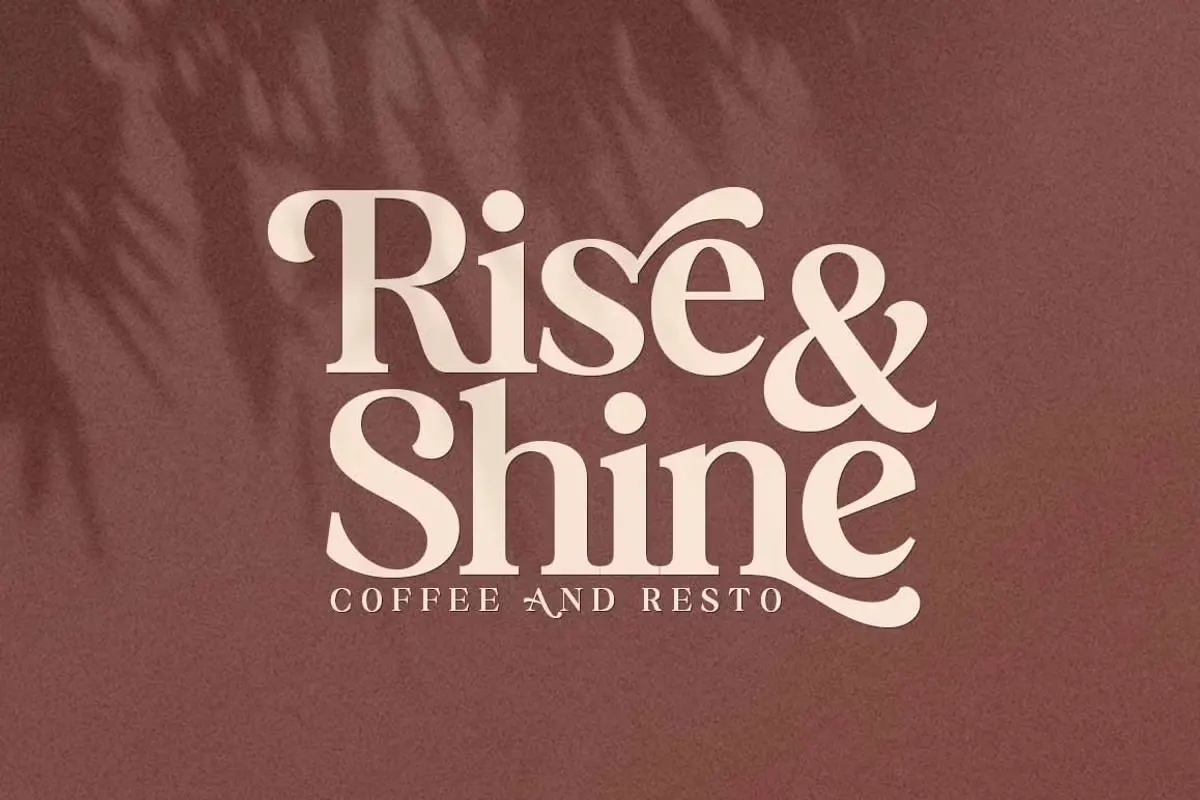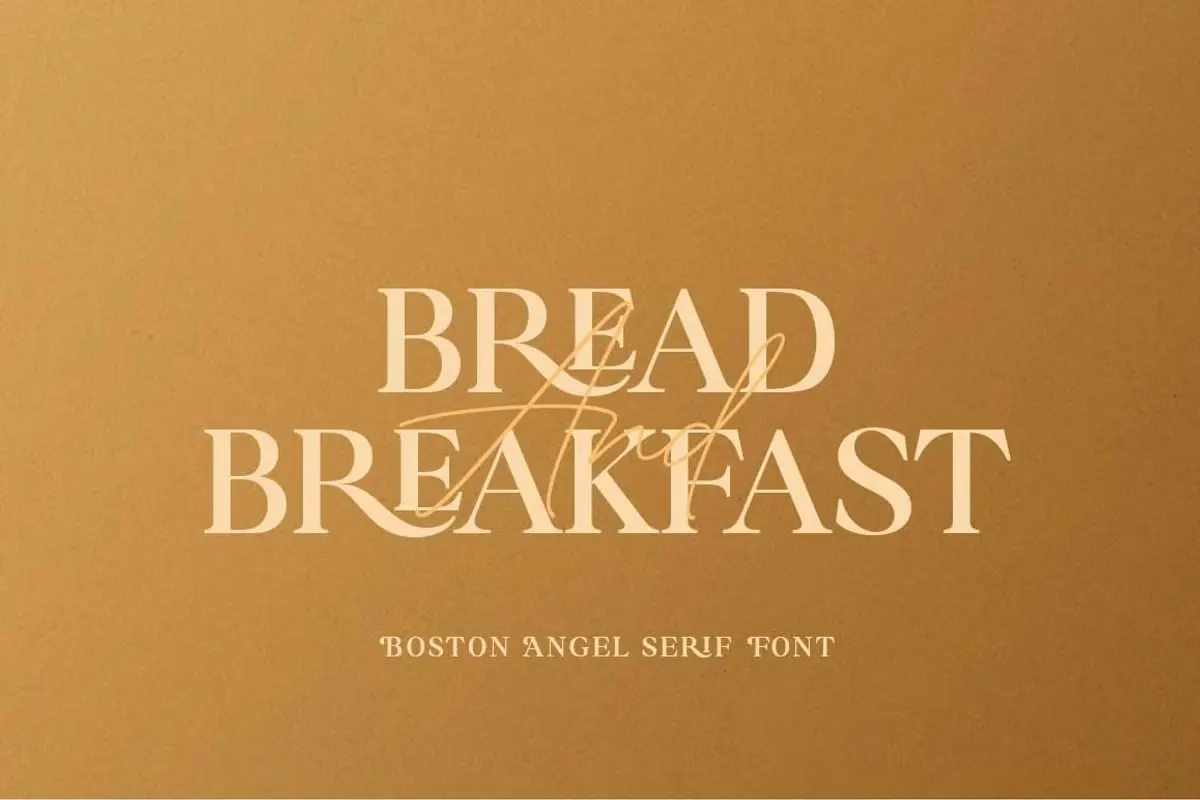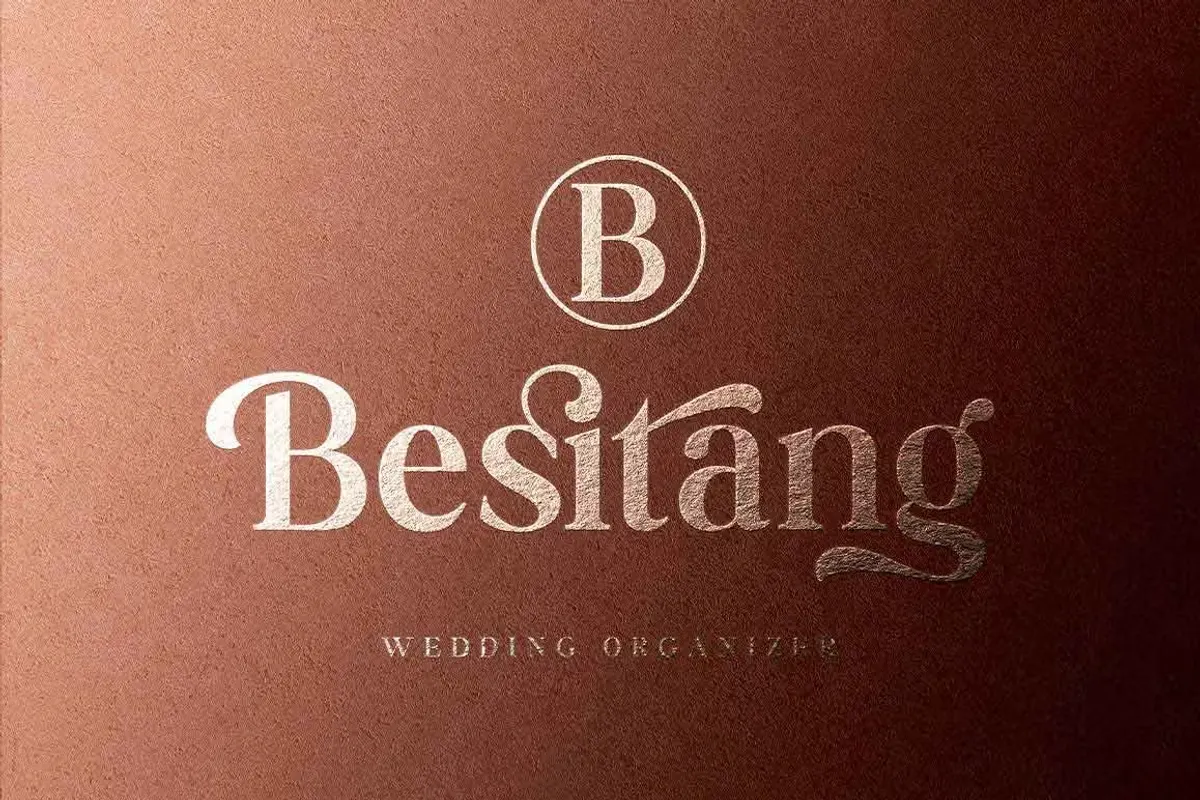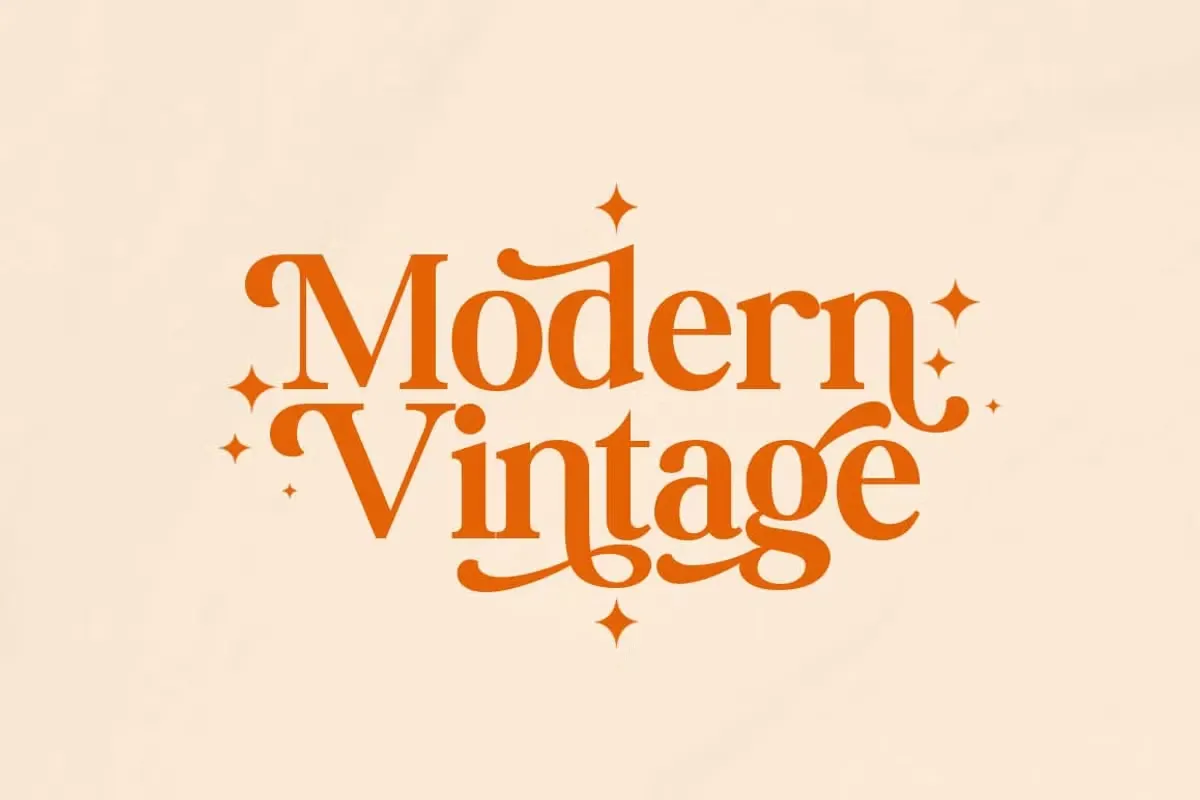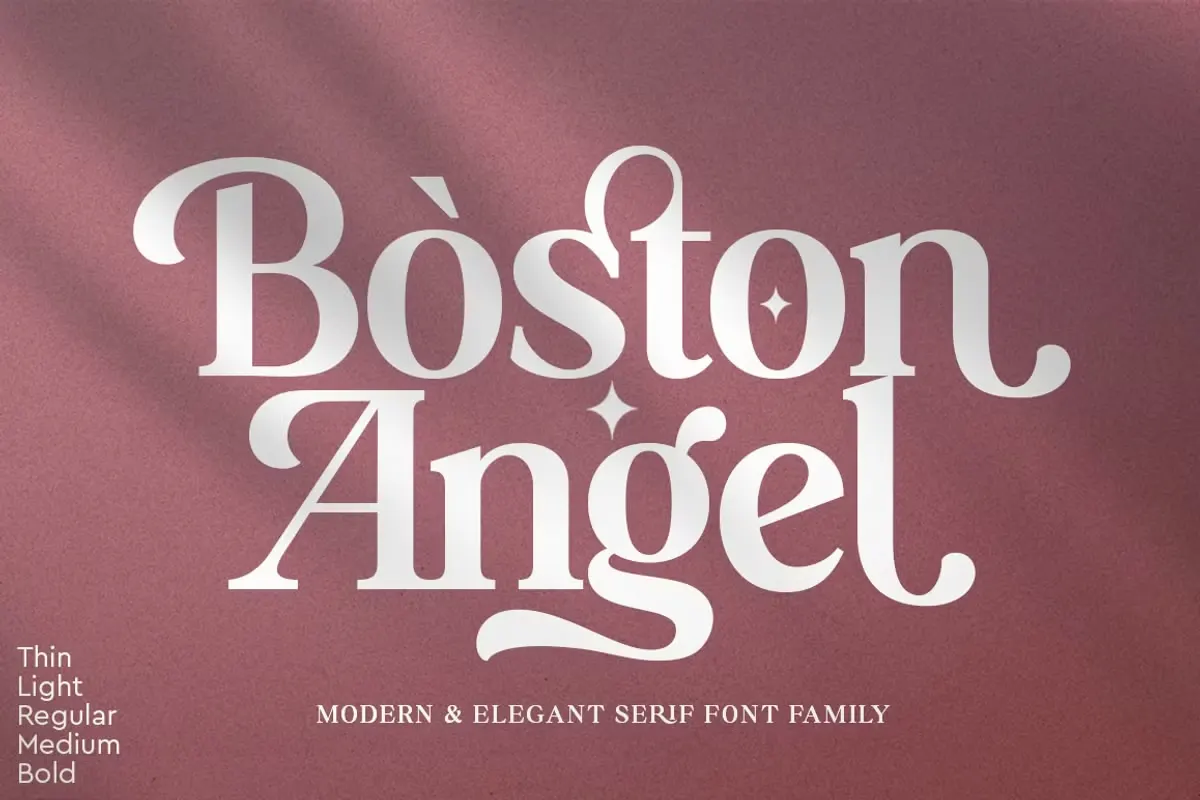
About Boston Angel Font
I’m a typographer and graphic designer who enjoys fonts that bring character and sophistication to branding work. While working on a new identity project, I found the Boston Angel Font and decided to try it. The mix of modern style with vintage charm made it stand out right away.
I used it on logo concepts and packaging layouts, and it gave both a refined and elegant touch. The results felt balanced and professional, which is why I wanted to write this review. Sharing how it worked in my design process might help other creatives see its potential.
The Font Type and the Designer
The Boston Angel Font is a modern vintage serif typeface designed by Mulkan Nazir. It belongs to the growing trend of serif fonts that combine classic forms with contemporary refinements. With its strong strokes and detailed letterforms, it creates a balance between tradition and modern elegance.
Boston Angel includes a full serif font family packed with features. It offers uppercase and lowercase letters, numerals, punctuation, and multilingual support. What makes it distinctive are its 35 ligatures and 114 alternates, which allow endless variation in text styling. Designers can easily adapt the font to match different tones, from playful to classy.
The font also supports OpenType features like stylistic alternates, ligatures, and PUA encoding, making it accessible across professional design software. These details help ensure smooth usability for both print and digital projects.
Its modern vintage aesthetic positions it well for industries that value timeless design while embracing current trends. Whether used in branding, packaging, or magazines, Boston Angel delivers a polished and stylish look.
Features of Boston Angel Regular Font
The Boston Angel Font stands out through its combination of elegance and flexibility. The typeface includes both uppercase and lowercase letters, giving users freedom in creating headings, body text, or stylistic displays. Each letterform has a luxurious, modern serif style with rounded yet sharp details.
A highlight of this font is its alternates and ligatures. With 114 alternates and 35 ligatures, designers can shape their text in unique ways. This makes every project feel custom, even when using the same typeface. It’s perfect for creating variety within branding systems while maintaining consistency.
Boston Angel has the charm of a vintage serif but with a contemporary twist. Its clean shapes make it suitable for logos, while the stylish alternates add personality for magazine headlines or advertising campaigns. The font’s structure keeps it readable, but its decorative touches make it more than just functional.
The font family also ensures compatibility across platforms, making it easy to embed in desktop projects or digital work. With its PUA encoding, special glyphs and characters are accessible without complicated tools. Altogether, these features make Boston Angel a reliable and versatile serif.
The Boston Angel Font Free Download demo can be tested in personal projects, but it shines brightest in professional design. It is perfect for branding projects where elegance and modern style are key. Its refined serif details make it a natural fit for logo design and corporate identity systems.
In packaging design, Boston Angel adds a classy vintage touch to product labels, luxury boxes, or cosmetics branding. Its alternates and ligatures bring subtle variety that elevates the final look.
The font also adapts well to magazine typography, postcards, advertising, and editorial layouts. The large set of stylistic alternates ensures titles and headings never feel repetitive. Paired with clean sans-serif fonts, it delivers a balanced, professional visual system.
For digital use, Boston Angel works in websites, social media graphics, and online publications. Its clarity ensures readability, while its stylistic variations make designs unique. Whether used in elegant invitations, fashion branding, or luxury projects, this serif font proves versatile and dependable.